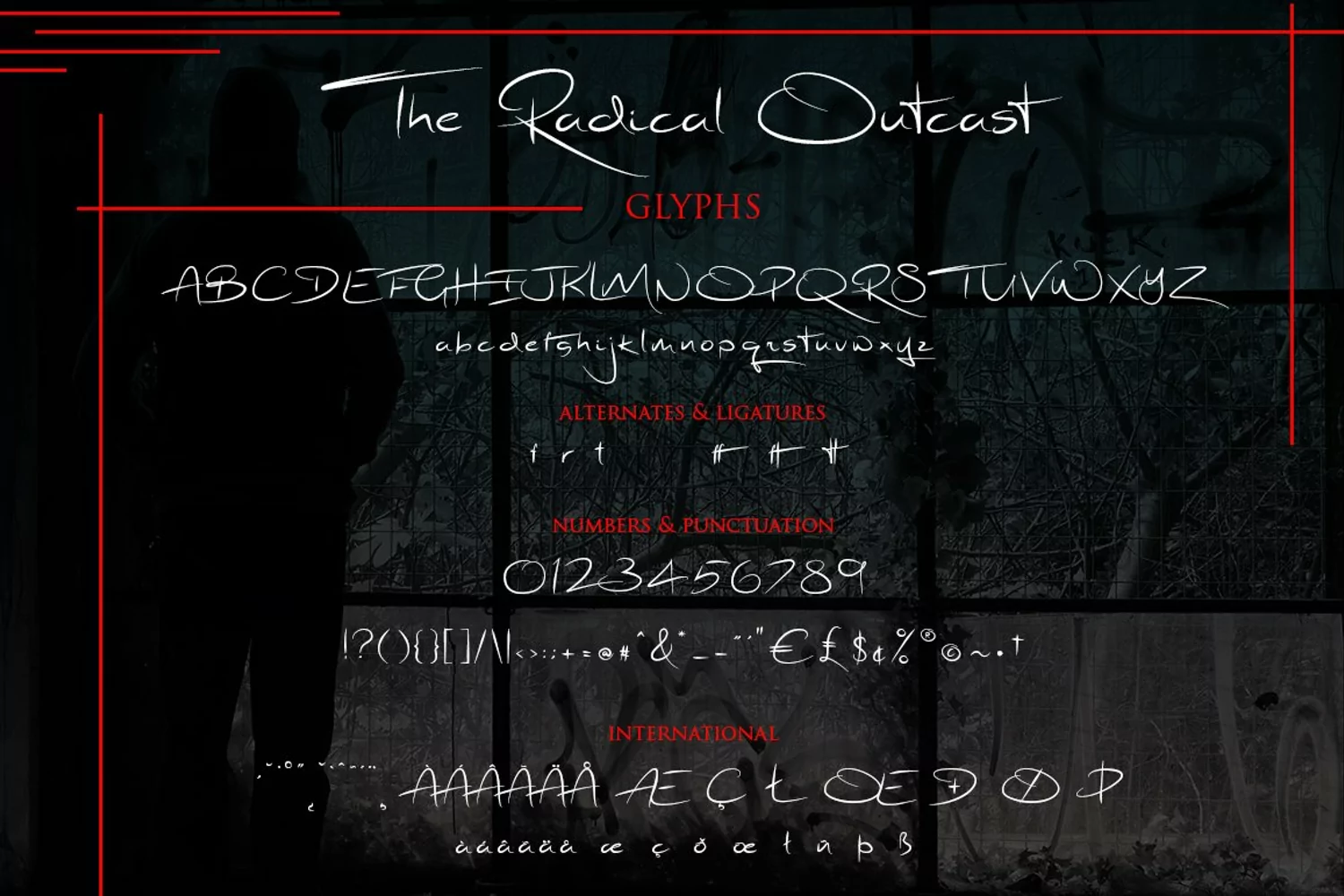
The Radical Outcast
This brand new signature font is so versatile that you can use it for just about anything. Its big, bold caps are perfect for logos and icons, giving off a genuine and unique handwriting feel to your designs.
There are a few alternative lowercase letters and ligatures to ensure that the font works well for you and you can see all of the glyphs in the second preview picture. It's PUA encoded which means that you can easily copy and paste these extra glyphs via Font Book (Mac) or Character Map (Windows) - that's if you're not using Illustrator or Photoshop or any other software which has a glyphs utility incorporated. It also includes International accented characters.